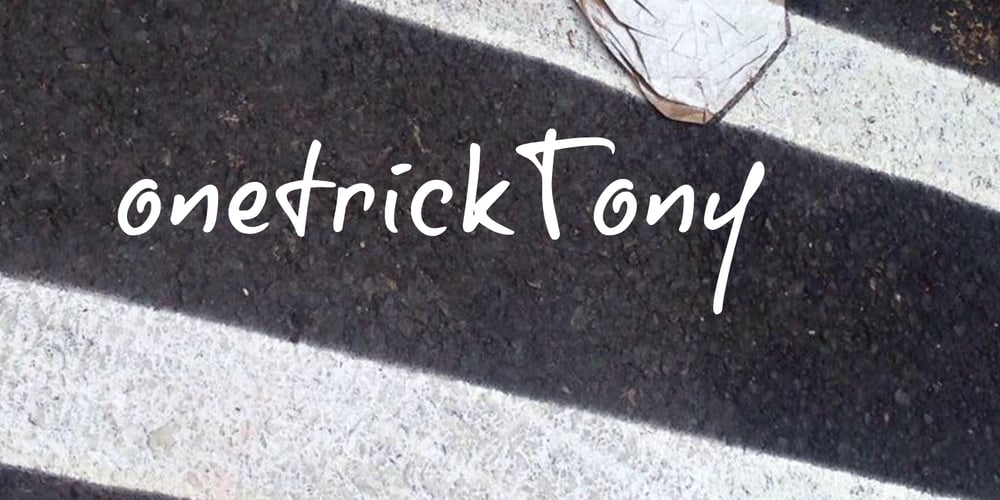
OnetrickTony
OnetrickTony font
OnetrickTony Font Family was designed by Jeroen “Joebob” van der Ham and published by JOEBOB graphics. OnetrickTony contains 1 styles and family package options. This handwritten font is the result of trying to write in a different way to what I’m used to: sometimes taking a left turn when going straight was the more obvious way. Or the other way around. The result was quite readable and it turned out that I could make surprisingly matching monographs with it.